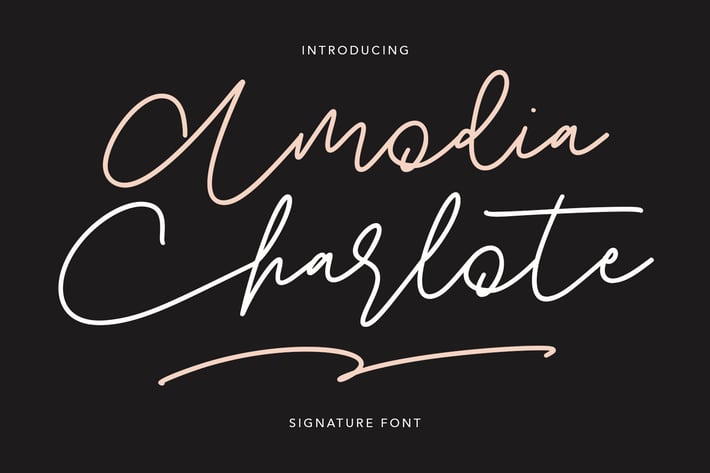
Amodia Charlote Signature Font
Give your designs an authentic handcrafted feel. "Amodia Charlote" is perfectly suited to signature, stationery, logo, typography quotes, magazine or book cover, website header, clothing, branding, packaging design and more.